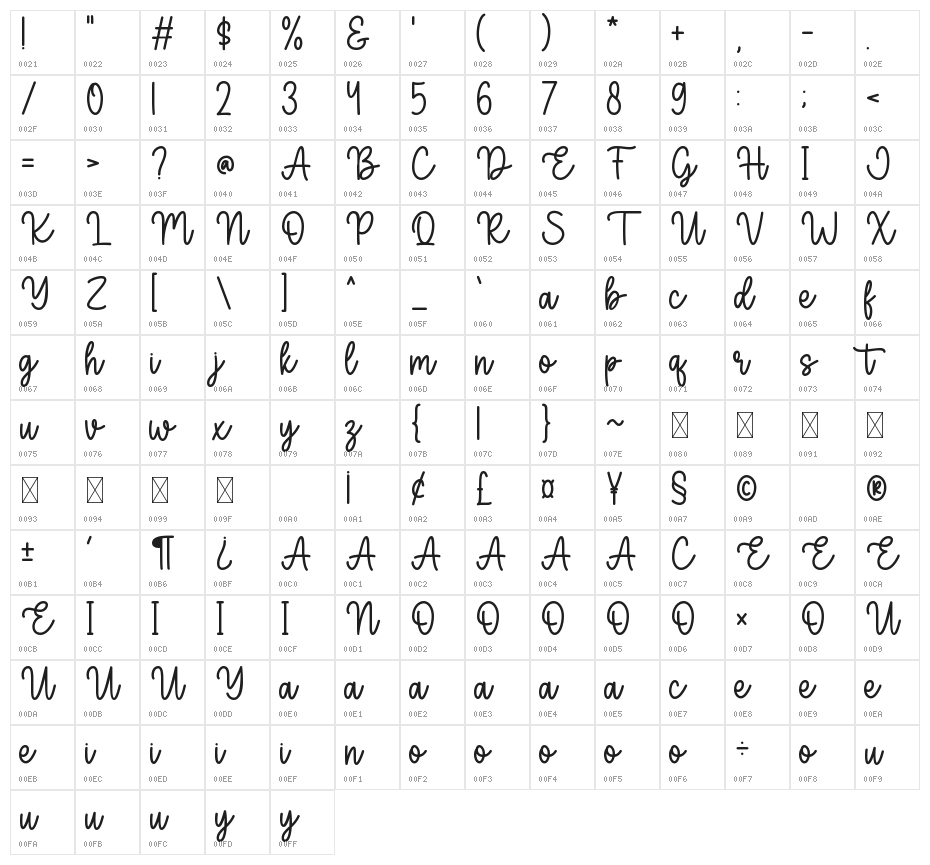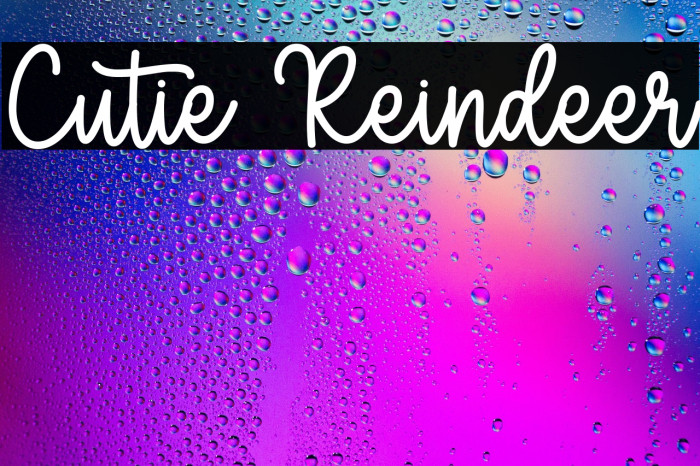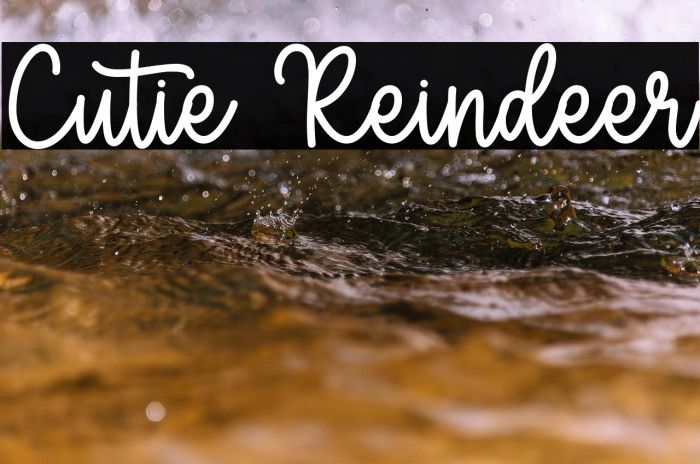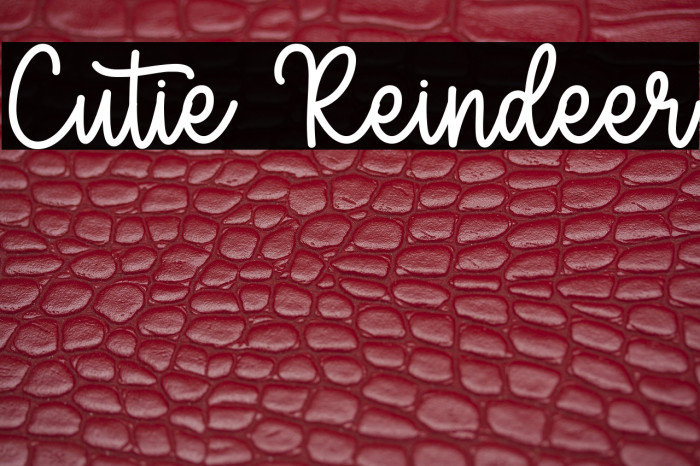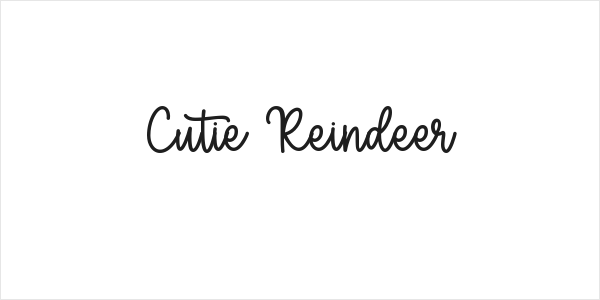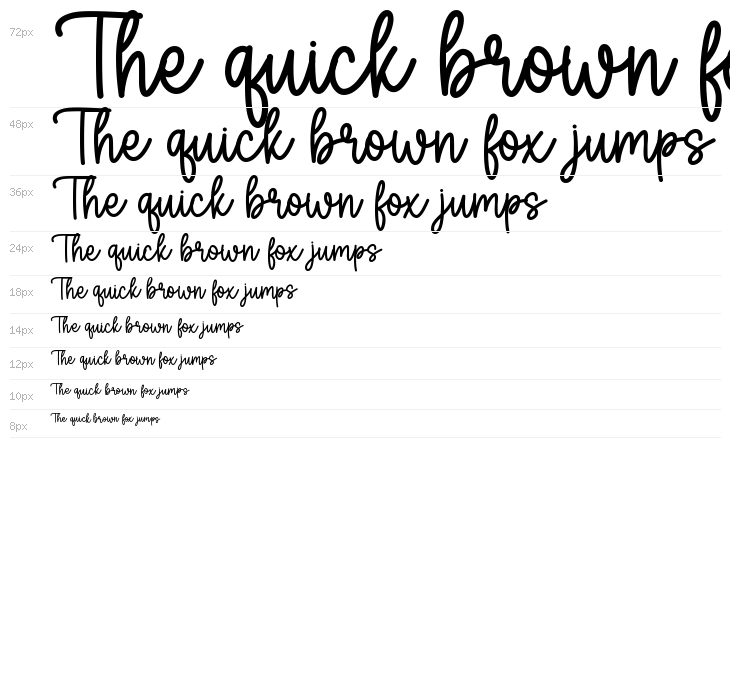
Cutie Reindeer Font
Cutie Reindeer Description
A playful, handwritten script font with a casual and friendly appearance. The characters are connected, giving it a flowing and cohesive look.
| Overall Style | Casual, Friendly |
| Use Case | Invitations, Greeting cards, Playful branding |
| Proposed Projects | Greeting cards, invitations, playful branding. |